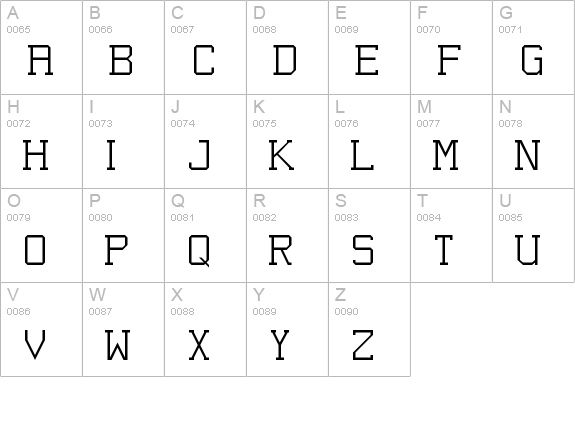
Introducing Sebastian Serif NBP, a stunning font that effortlessly blends elegance and sophistication. With its timeless appeal and refined letterforms, this typeface is perfect for adding a touch of class to any project. Sebastian Serif NBP stands out from the crowd with its unique and intricate design, making it a true standout in the world of typography. Each character is meticulously crafted, showcasing the exquisite attention to detail that went into its creation. This font exudes a sense of professionalism and refinement, making it ideal for a wide range of applications. Whether you're designing a logo, crafting a wedding invitation, or creating a magazine layout, Sebastian Serif NBP will elevate your project to new heights. One of the best aspects of Sebastian Serif NBP is that it is available for free. Yes, you read that right - this incredible font can be yours at no cost. You can easily download it from FontsMarket.com, a reputable website known for its vast collection of high-quality fonts. By offering Sebastian Serif NBP for free, the creators have made it accessible to everyone, regardless of their budget or design expertise. This gesture ensures that anyone can enjoy the beauty and versatility of this remarkable font. So why wait? Don't miss out on the opportunity to enhance your designs with the elegance of Sebastian Serif NBP. Visit FontsMarket.com today and download this stunning font, completely free of charge. Unleash your creativity and let Sebastian Serif NBP transform your projects into works of art.